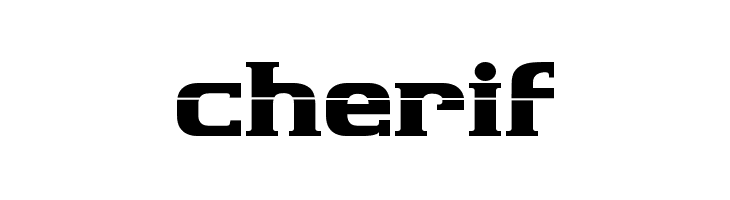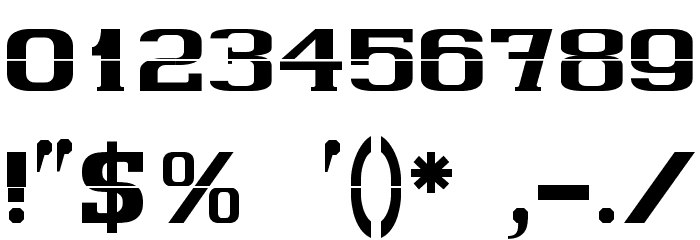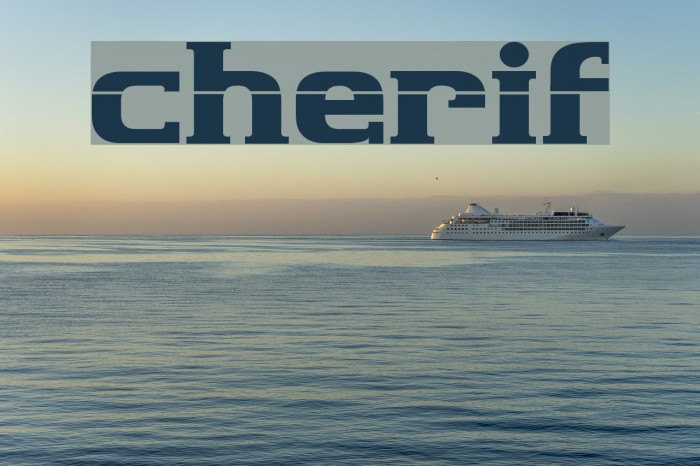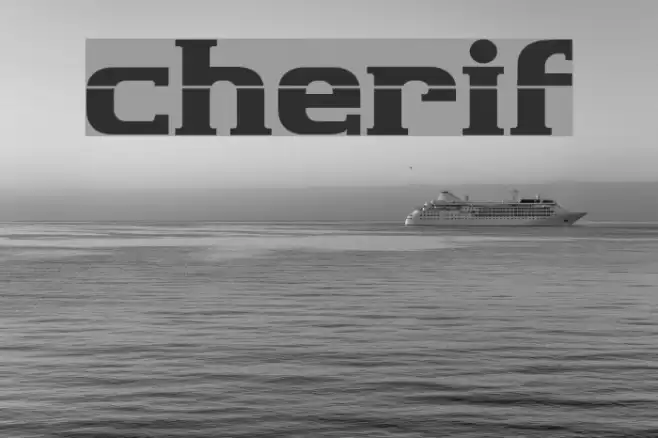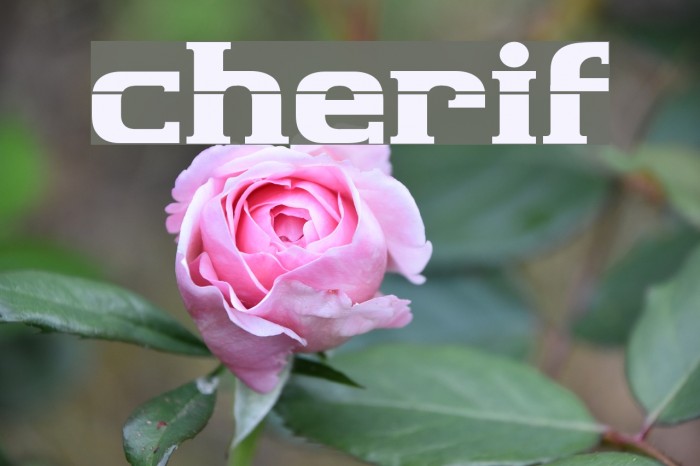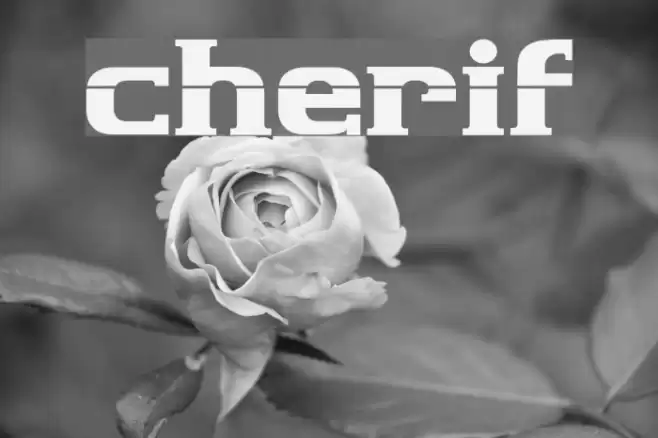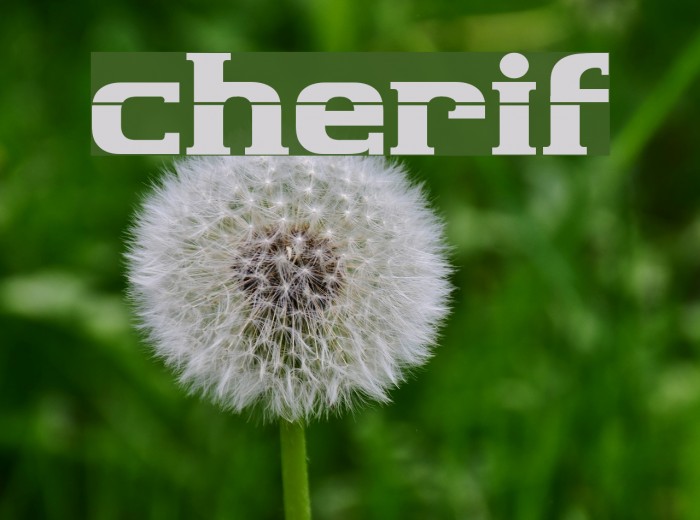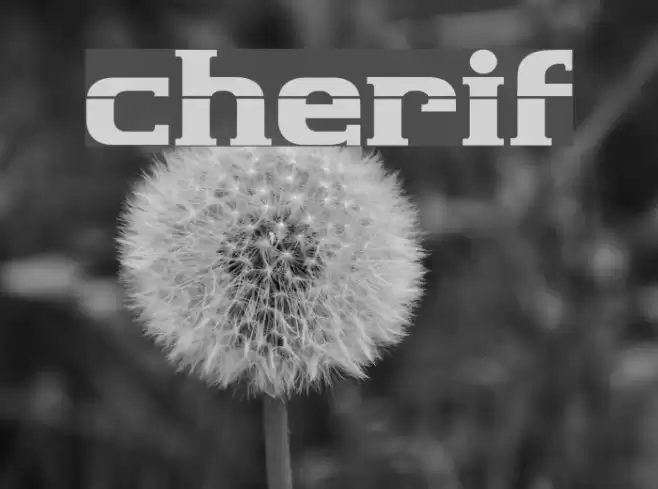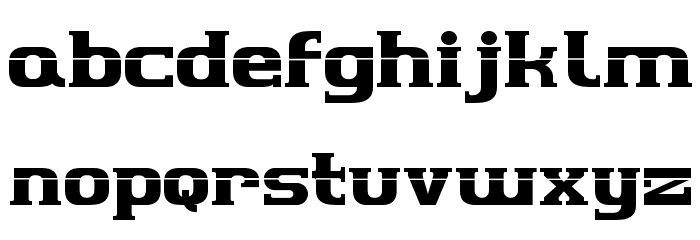
cherif Font
cherif Description
This font features a bold and striking design with a modern twist. The characters are constructed with a combination of thick and thin strokes, creating a high contrast that draws attention. The uppercase letters exhibit a strong, geometric structure with sharp angles and a sense of symmetry. The lowercase letters maintain a similar style, offering a cohesive look across different text cases. Numbers and special characters are designed to match the boldness and geometric nature of the alphabet, ensuring consistency throughout. This font's unique style makes it ideal for projects that require a strong visual impact.
| Proposed Projects | Ideal for branding, poster design, headlines, and any project requiring a bold visual statement. |